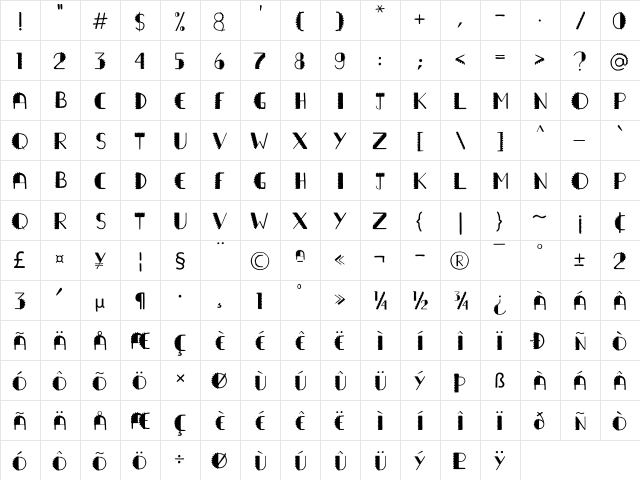
FK_Dino Regular
Design Context for FK_Dino Typeface
FK_Dino is a composed and adaptable typeface that performs quietly and consistently across a wide range of design contexts.